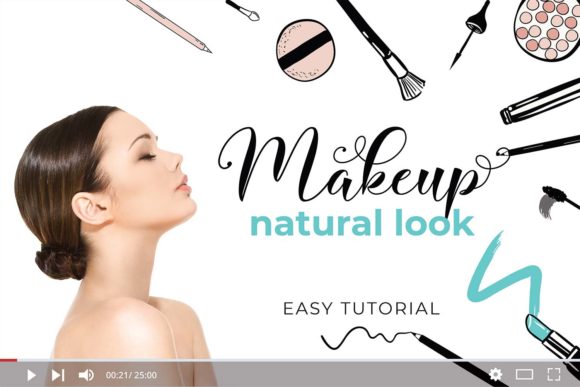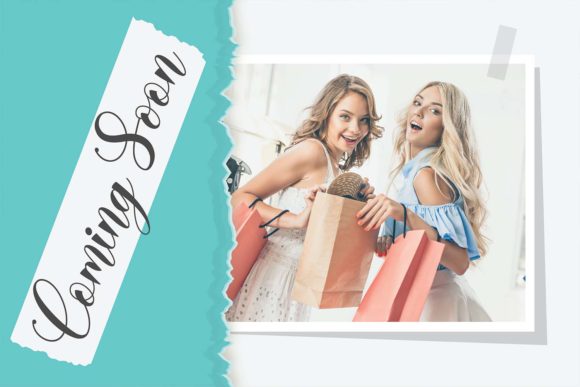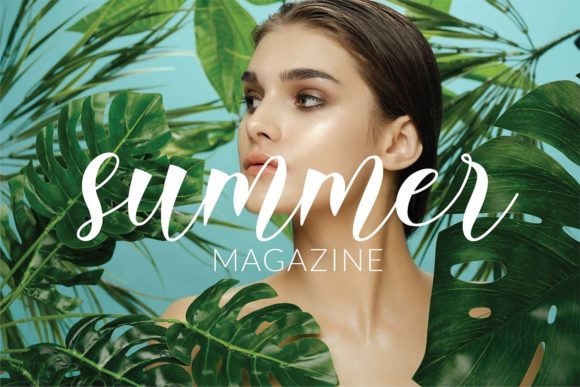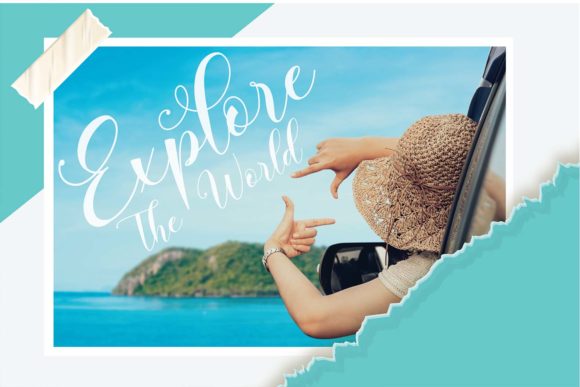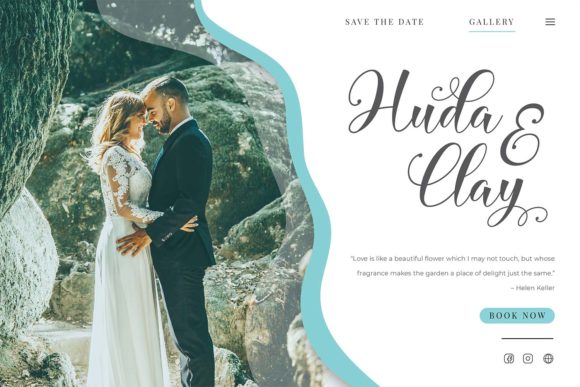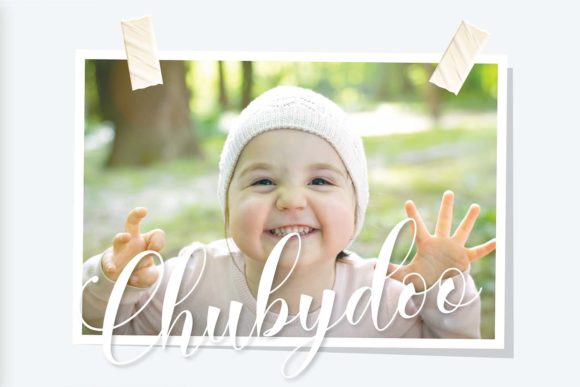
Discover the Elegance of Belaris Font: Elevate Your Designs with a Touch of Sophistication
In the world of typography, few fonts manage to convey the essence of elegance and sophistication as effortlessly as the Belaris Font. This beautiful, handwritten typeface has captured the hearts of designers and crafters alike, and for good reason. With its flowing lines, stunning glyphs, and exquisite alternates, Belaris brings a level of refinement to any design project that is hard to match.
The Characteristics of Belaris Font
So, what makes Belaris Font stand out from the crowd? Let’s take a closer look at its key characteristics:
- Varying Baseline: One of the defining features of Belaris is its varying baseline. Unlike fonts with uniform baselines, Belaris offers a more organic and dynamic feel, reminiscent of handwriting. This variability adds a touch of authenticity and personality to your designs.
- Smooth Lines: The lines in Belaris Font are incredibly smooth, contributing to its elegant appearance. Whether you’re working on a wedding invitation, a logo, or a greeting card, the smooth lines of Belaris ensure that your design looks polished and professional.
- Gorgeous Glyphs: Glyphs are an essential part of any font, and Belaris does not disappoint. The font features a wide range of gorgeous glyphs that can be used to add flair and interest to your designs. From intricate details to beautiful swashes, Belaris glyphs are sure to elevate your work.
- Stunning Alternates: Alternates offer designers the flexibility to experiment with different versions of letters and characters, allowing for greater creativity and customization. Belaris Font comes with stunning alternates that can be used to create unique and eye-catching designs.
Belaris Font’s versatility makes it suitable for a wide range of design projects. Here are some of the ways you can use Belaris to enhance your work:
- Wedding Invitations: Add a touch of romance and sophistication to your wedding invitations with Belaris. Its elegant lines and beautiful glyphs make it perfect for conveying the joy and excitement of the occasion.
- Thank You Cards: Express your gratitude in style with Belaris. The font’s flowing lines and gorgeous alternates make it ideal for creating heartfelt and visually appealing thank you cards.
- Quotes: Give your quotes a boost of elegance and impact with Belaris. Whether you’re designing inspirational quotes, motivational sayings, or famous phrases, Belaris ensures that your message is conveyed with style.
- Greeting Cards: From birthday cards to holiday greetings, Belaris can add a touch of class to any type of greeting card. Its smooth lines and stunning glyphs make it perfect for creating designs that are both beautiful and meaningful.
- Logos: If you’re looking to create a logo that exudes elegance and sophistication, Belaris is an excellent choice. Its unique and flowing design makes it stand out from more traditional fonts.
- Business Cards: Make a lasting impression with your business cards by incorporating Belaris Font. Its professional yet elegant appearance ensures that your business cards look refined and high-quality.
Why Designers and Crafters Love Belaris Font
Designers and crafters have fallen in love with Belaris Font for several reasons:
- Ease of Use: Despite its elegant appearance, Belaris is surprisingly easy to use. Whether you’re a seasoned designer or a beginner, you’ll find that Belaris integrates seamlessly into your design workflow.
- Customization: With its range of alternates and glyphs, Belaris offers plenty of opportunities for customization. This allows designers to create truly unique and personalized designs.
- Versatility: As mentioned earlier, Belaris is suitable for a wide range of design projects. Its versatility makes it a valuable addition to any designer’s toolkit.
- Aesthetic Appeal: Ultimately, it’s Belaris’s aesthetic appeal that sets it apart. Its elegant lines, beautiful glyphs, and stunning alternates make it a font that can elevate any design project.
| Font Name | Belaris Font |
| Author | Naharstd |
Belaris Font is a beautiful and elegant typeface that can add a touch of sophistication to any design project. With its varying baseline, smooth lines, gorgeous glyphs, and stunning alternates, Belaris offers designers and crafters a versatile and aesthetically pleasing font that is perfect for a wide range of applications. Whether you’re working on wedding invitations, logos, business cards, or any other design project, Belaris is sure to make your work stand out. So why not give Belaris Font a try and discover the difference it can make in your designs?